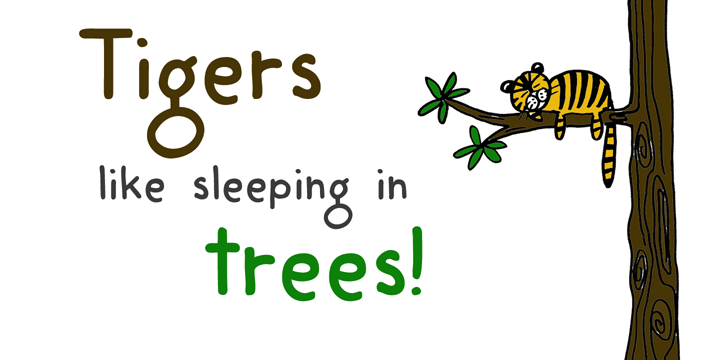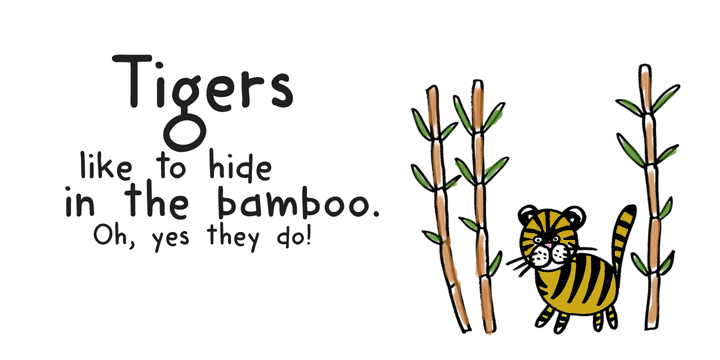
Harimau is a comic and hand drawn font published by Hanoded.
Harimau means Tiger in Bahasa Indonesia. It is a very easy to read, playful font, which makes it ideal for children’s books and posters. Harimau comes with extensive language support.